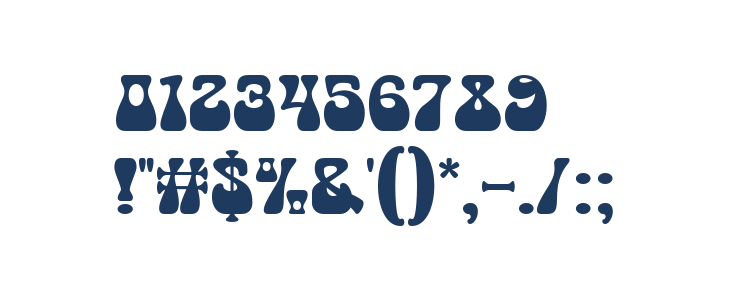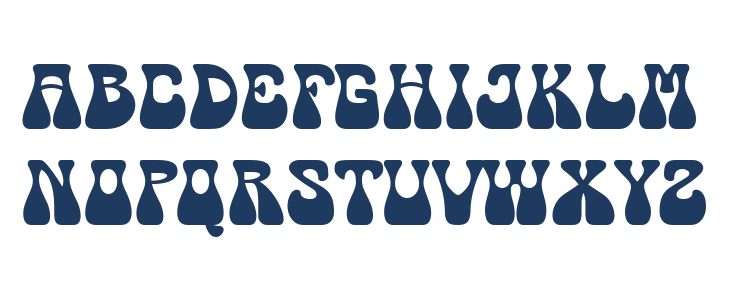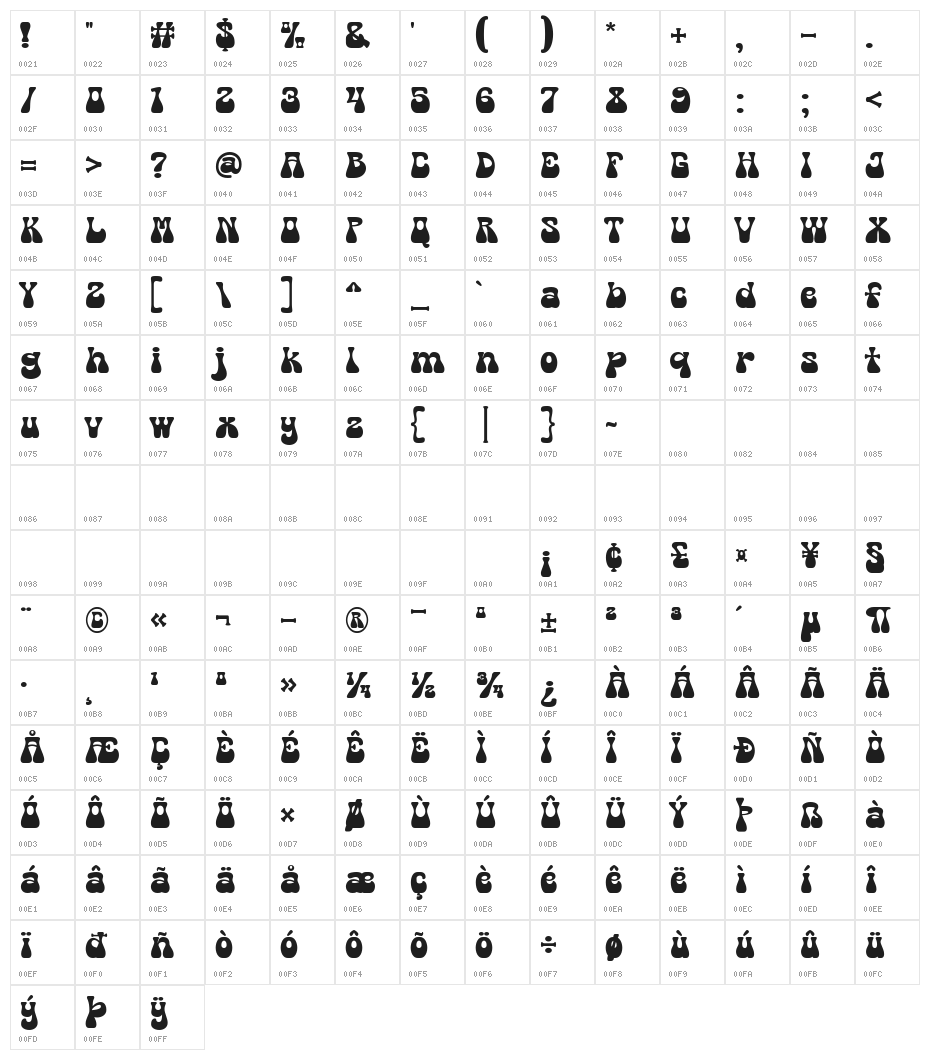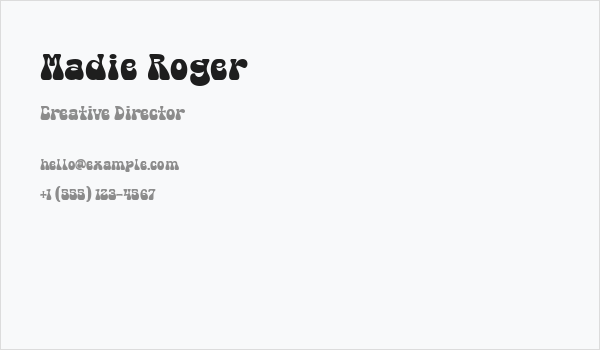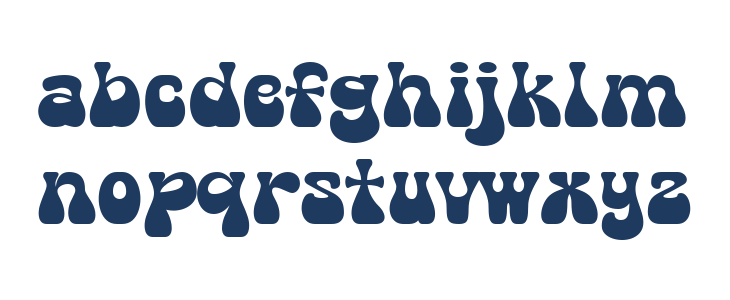
Madie Roger Font
Madie Roger Description
| Categories | bubble letter |
| Overall Style | Decorative, Retro, Psychedelic |
| Use Case | Headlines, Posters, Logos, Short Phrases |
| Proposed Projects | Posters, album covers, event flyers, branding for creative industries, childrenΓ’β¬β’s products, retro-themed designs. |